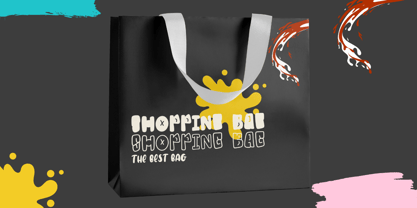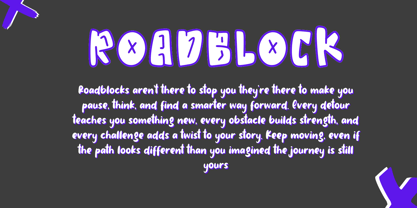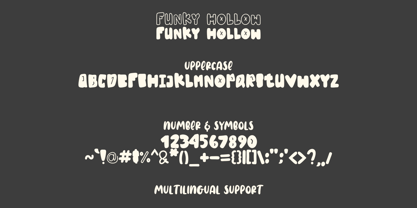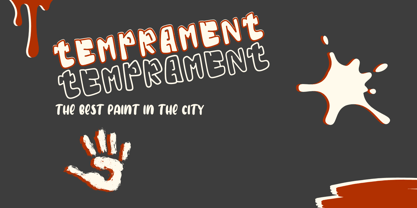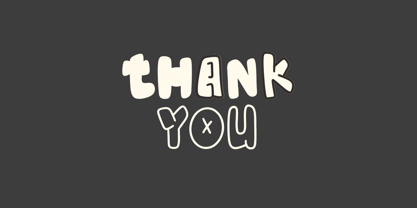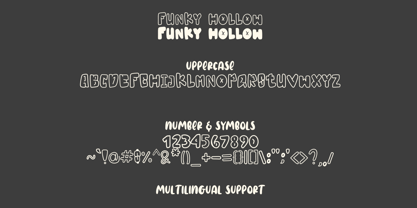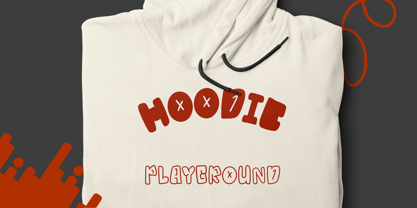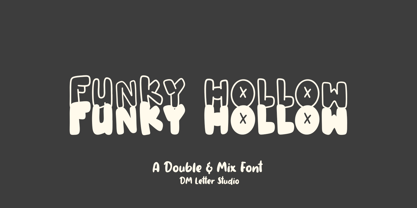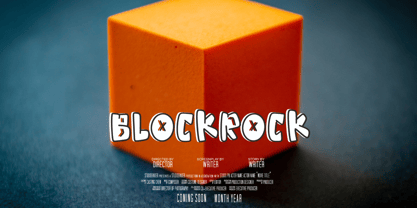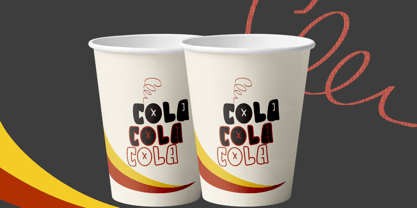
Funky Hollow
by DM Studio
The Funky Hollow Font Family was designed by Dimas Prasetyo and published by DM Studio. Funky Hollow contains 2 styles and family package options. More about this family
Funky Hollow – A Double & Mix Display Font Funky Hollow is a quirky and eye-catching display font that combines double-line outlines with playful mix-and-match styling. Its bold and groovy look makes it perfect for retro-inspired designs, streetwear branding, posters, and creative packaging. Whether you use it as a solid headline or layer the mixed style for vibrant effects, Funky Hollow brings funky personality and visual energy to your projects. Features: Double & Mix Style: Fun dual-line letters with a unique hollow effect and mix design options. Perfect for Bold Projects: Great for logos, posters, stickers, T-shirts, and album covers. Playful Retro Vibe: Inspired by funky lettering, street art, and nostalgic design trends. Complete Character Set: A–Z uppercase, lowercase, numerals, punctuation, and multilingual support. Easy Installation: Fully compatible with Mac and Windows.
Designers: Dimas Prasetyo
Foundry: DM Studio